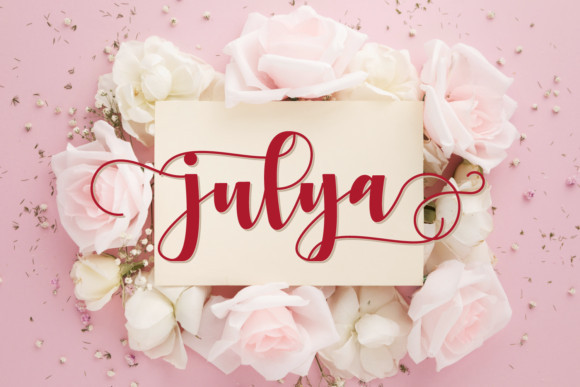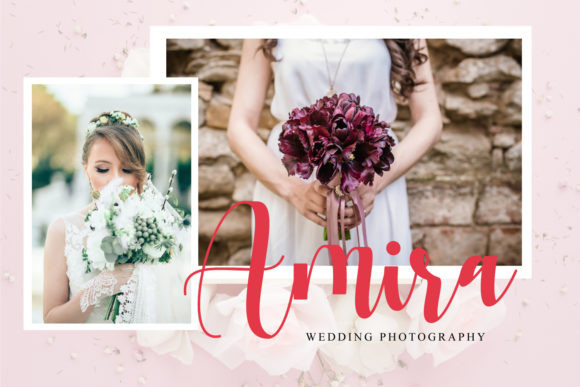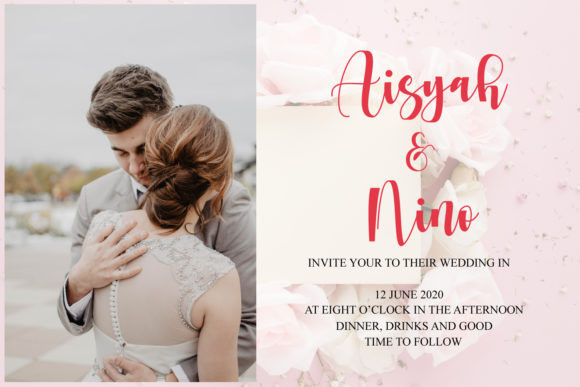
Julya Font
Julya feels incredibly sweet and flowing. It looks beautiful on wedding invitations, thank you cards, quotes, greeting cards, logos, business cards and every other design which needs a handwritten touch. It features a varying baseline, smooth lines, gorgeous glyphs and stunning alternates.